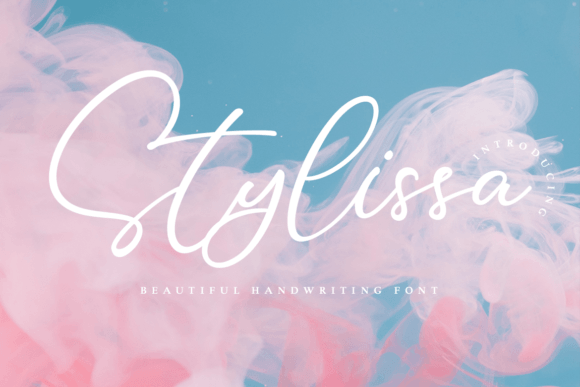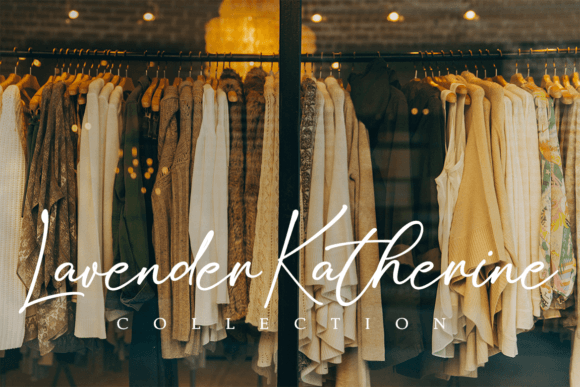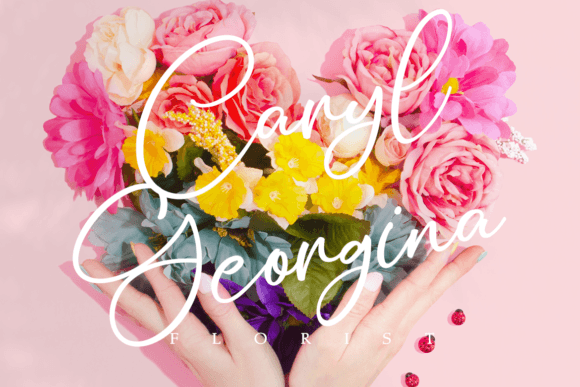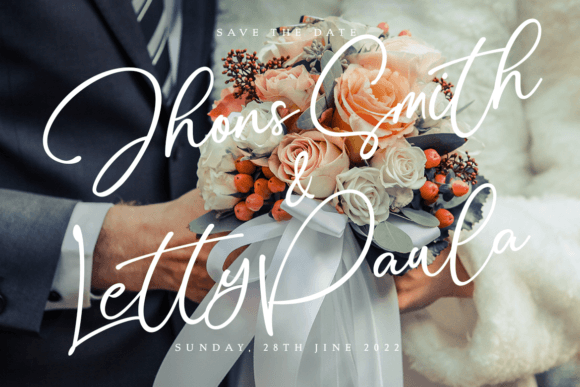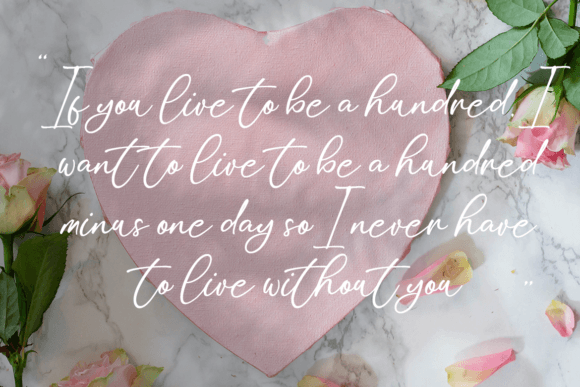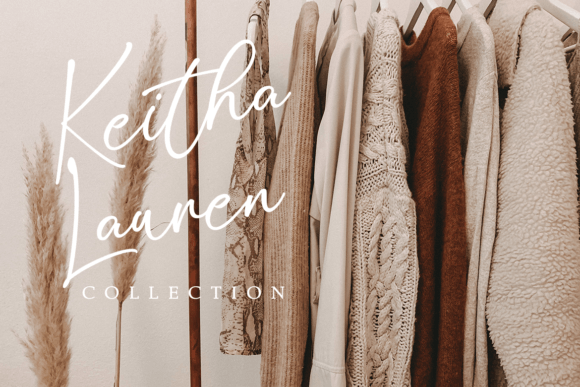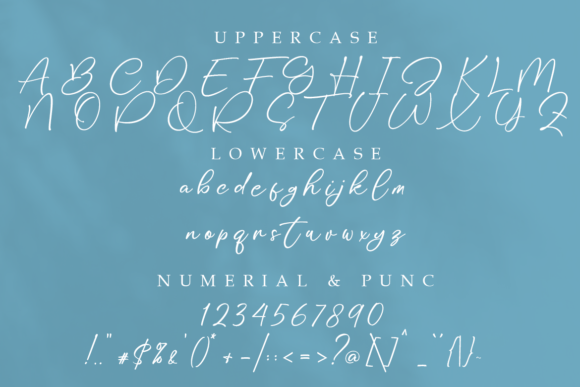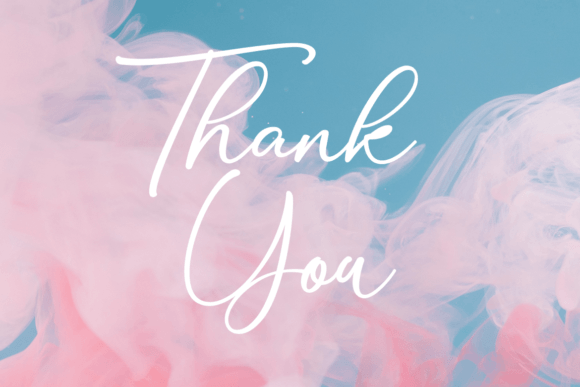
Stylissa Font
About Stylissa Font
Stylissa is a sweet and casual handwritten font. It is perfect for logos, invitations, stationery, wedding designs, social media posts, advertisements, product packaging, or anything that needs a romantic, handwritten touch.